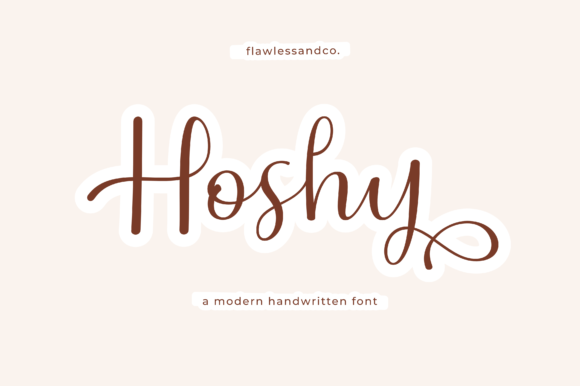
Behold the Hoshy Font, an Enchanting Script That Will Capture Hearts and Elevate Your Creations!
Journey into the realm of typography with Hoshy, a captivating script font that has the power to transform your designs into breathtaking masterpieces. Each letter, meticulously crafted with elegance, flows effortlessly, casting a spell of beauty and sophistication upon your words. Prepare to captivate and inspire with Hoshy, your trusty companion in the world of design and creativity.
This remarkable font boasts an array of delicate details, carefully etched to perfection. Its graceful curves and intricate flourishes create an exquisite tapestry of visual delight. Whether you grace wedding invitations with ethereal charm or breathe life into logos with a touch of elegance, Hoshy will elevate your work to dizzying heights.
Dive into a Universe of Versatility
Hoshy's versatility knows no bounds, making it an indispensable tool in the hands of discerning designers. With its innate ability to adapt to any project, Hoshy effortlessly complements a wide spectrum of styles and themes. From creating captivating social media posts that ignite engagement to crafting stunning posters that command attention, Hoshy will become your go-to font for every creative endeavor.
Whether you seek to weave magic into branding designs, infuse marketing materials with a touch of allure, or simply express your individuality through personal projects, Hoshy will be your steadfast companion, transforming your ideas into works of art. Its enchanting presence will captivate audiences, leaving an indelible mark on their minds.
A Font That Inspires Creativity
With Hoshy as your creative ally, you'll discover a wellspring of inspiration flowing through your veins. This font possesses the uncanny ability to ignite your imagination, propelling you towards new horizons of creativity. As you explore the depths of Hoshy's charm, you'll find yourself effortlessly conjuring up captivating designs, each one imbued with a unique personality.
Soar to New Heights with Hoshy
Embrace the Hoshy Font, and embark on a transformative journey through the realm of design. With its enchanting grace and remarkable versatility, Hoshy will elevate your designs to unprecedented heights. Unleash your creativity, captivate your audience, and leave an unforgettable impression with every project you undertake. Let Hoshy be your guiding light, illuminating your path towards typographic excellence.